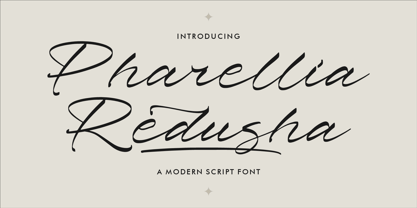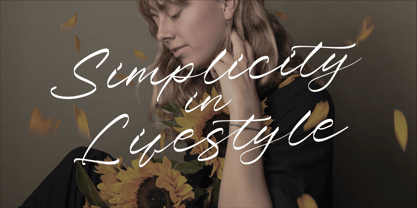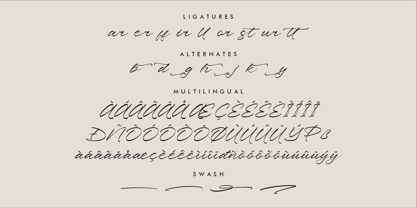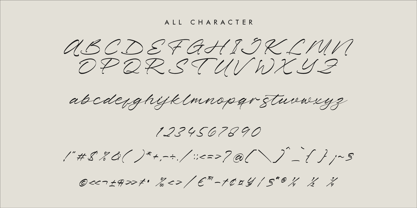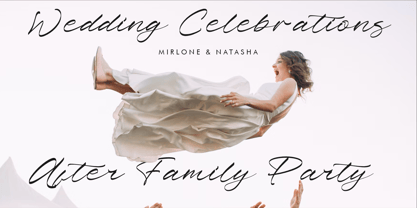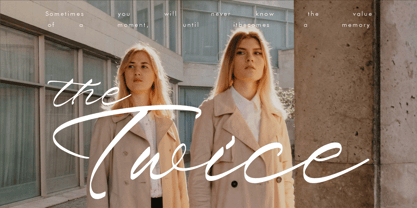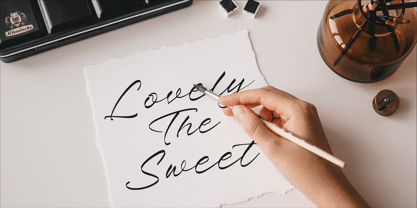
Pharellia Redusha
by Letterena Studios
The Pharellia Redusha Font Family was designed by Heru Utama Putra and published by Letterena Studios. Pharellia Redusha contains 2 styles.
Pharellia Redusha is a luxury script that has own unique style & modern look. This typeface is perfect for an elegant & luxury logo, book or movie title designs, fashion brands, magazines, clothes, lettering, quotes, and so much more.